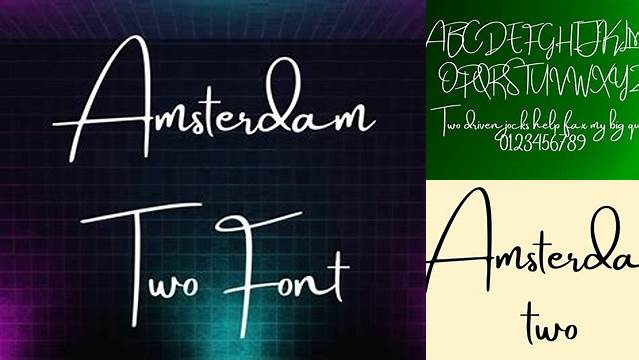
The world of typography is vast and varied, with countless fonts available for use in graphic design, web design, and more. Among these, Amsterdam Two font has carved out a niche for itself, known for its distinctive style and versatility. This font is often sought after by designers looking to add a touch of elegance and modernity to their projects. Its clean lines and unique character shapes make it suitable for a wide range of applications, from branding and advertising to editorial design and web interfaces. Understanding the appeal of Amsterdam Two involves recognizing its specific characteristics and how they can be leveraged to create visually compelling designs. The font's aesthetic properties, such as its weight, spacing, and overall form, contribute to its legibility and visual impact. Designers often select Amsterdam Two for its ability to convey a sense of sophistication and contemporary style, making it a popular choice for projects that aim to project a modern yet timeless image. Moreover, the availability of Amsterdam Two in various styles and weights further enhances its versatility, allowing designers to tailor its appearance to specific needs and contexts. Whether used in headlines, body text, or logos, Amsterdam Two offers a unique visual signature that can elevate the overall design and communication effectiveness of a project.
So, what exactly is Amsterdam Two font? This font is celebrated for its modern and elegant aesthetic, making it a favorite among designers for various projects. Think logos, websites, posters, and even branding materials. Its clean lines and unique letterforms give it a distinct personality that can elevate any design. The beauty of Amsterdam Two font lies in its versatility; it’s equally at home in a sleek, minimalist design as it is in a more elaborate, creative composition. It's this adaptability that makes it a go-to choice for many professionals. Amsterdam Two font is characterized by its contemporary and refined design elements. Its clean lines and distinctive letterforms contribute to its overall elegance, making it a popular choice for various design applications. The font's modern aesthetic is often favored by designers looking to create a sophisticated and visually appealing look. One of the key features of Amsterdam Two is its versatility. It can be effectively used in a wide range of projects, including logo design, website layouts, posters, and branding materials. Its adaptability allows it to seamlessly integrate into different design styles and contexts, making it a valuable asset for creative professionals. The font's legibility and clarity also play a significant role in its popularity. Amsterdam Two is designed to ensure readability across different sizes and mediums, which is essential for both print and digital applications. This attribute makes it suitable for body text as well as headlines, providing designers with the flexibility to use the font throughout a project. Furthermore, the unique personality of Amsterdam Two sets it apart from more generic fonts. Its distinct character shapes and overall visual presence add a touch of originality to designs, helping to create a memorable and impactful impression. Whether used sparingly or as a dominant element, Amsterdam Two can enhance the visual appeal and communication effectiveness of any design project.
Let's talk features, guys! Amsterdam Two font boasts several characteristics that make it stand out. Its clean, geometric structure provides excellent readability, while its slightly rounded edges add a touch of warmth and approachability. This balance is key to its widespread appeal. The font also comes in various weights and styles, from light to bold, allowing for a wide range of applications. Plus, its multilingual support ensures it can be used in projects around the globe. The key features of Amsterdam Two font are what truly set it apart in the world of typography. Its geometric structure is a defining characteristic, providing a sense of order and precision that contributes to its clean and modern appearance. This structural clarity is essential for readability, ensuring that the font remains legible across different sizes and mediums. The slight rounding of edges is another noteworthy feature, softening the overall look and adding a touch of warmth to the font's personality. This subtle detail prevents the font from appearing too sterile or clinical, making it more approachable and inviting. Versatility is a hallmark of Amsterdam Two, evident in the variety of weights and styles available. From light to bold, the font family offers a range of options that allow designers to tailor the font's appearance to specific needs. This adaptability makes Amsterdam Two suitable for diverse applications, from headlines and titles to body text and captions. The inclusion of multilingual support further enhances its utility, making it a globally applicable font. This feature ensures that Amsterdam Two can be used effectively in projects that require different languages and character sets, expanding its reach and usability. In addition to these features, Amsterdam Two's balanced design contributes to its overall appeal. The font strikes a harmonious balance between modernity and classic elegance, making it a versatile choice for a wide range of design styles. Whether used in corporate branding, editorial design, or web interfaces, Amsterdam Two maintains a consistent level of sophistication and readability.
Why should you choose Amsterdam Two font over the myriad of other options out there? The answer lies in its unique blend of elegance and modernity. This font is perfect for projects where you want to convey a sense of sophistication without sacrificing readability. It's also incredibly versatile, working well in both digital and print mediums. If you're aiming for a sleek, contemporary look, Amsterdam Two is definitely a font to consider. The reasons to choose Amsterdam Two font are numerous, making it a standout option for designers seeking a blend of elegance and modernity. Its ability to convey sophistication without sacrificing readability is a significant advantage. In projects where clear communication is paramount, Amsterdam Two excels by maintaining legibility across various sizes and mediums. This ensures that the message is effectively delivered, whether in print or digital formats. The font's versatility is another key factor that makes it an attractive choice. Its design is well-suited for a wide range of applications, from corporate branding and advertising to editorial layouts and web design. This adaptability allows designers to use Amsterdam Two in diverse projects without compromising the overall aesthetic or functional requirements. For those aiming for a sleek, contemporary look, Amsterdam Two is particularly compelling. Its clean lines and modern letterforms contribute to a polished and sophisticated appearance, ideal for projects that require a refined visual style. The font's ability to project a sense of innovation and style makes it a valuable asset in creating designs that stand out. Beyond its aesthetic qualities, Amsterdam Two also offers practical benefits. Its consistent design and balanced proportions make it easy to work with, ensuring that it integrates seamlessly into different design workflows. The font's comprehensive character set, including numerals, punctuation, and special characters, further enhances its usability and functionality. In summary, Amsterdam Two is a font that combines visual appeal with practical advantages, making it an excellent choice for designers who prioritize both form and function. Its blend of elegance, modernity, and versatility ensures that it remains a relevant and sought-after option in the world of typography.
Let's dive a bit deeper into licensing. When you download Amsterdam Two font, or any font for that matter, it's essential to understand the licensing terms. Some fonts are free for personal use but require a commercial license for business projects. Others may have restrictions on how you can modify or redistribute them. Ignoring these terms can lead to legal headaches down the road, so it's always best to be informed. Make sure you read the fine print and understand what you're agreeing to before using the font in any project. Understanding licensing considerations is crucial when downloading and using fonts, including Amsterdam Two. Fonts are intellectual property, and their usage is governed by copyright laws and licensing agreements. These agreements outline the terms and conditions under which the font can be used, including whether it's free for personal use, requires a commercial license for business projects, or has restrictions on modification and redistribution. Ignoring these terms can lead to legal complications and financial penalties, making it essential to be informed and compliant. The first step in navigating licensing considerations is to identify the type of license associated with the font. Many fonts are available under different license types, each with varying usage rights. Some fonts are offered under open-source licenses, which typically allow for free use, modification, and distribution. However, even with open-source licenses, there may be requirements for attribution or limitations on commercial use. Other fonts are licensed under proprietary agreements, which often differentiate between personal and commercial use. Personal use licenses typically allow individuals to use the font for non-commercial projects, such as personal websites, school assignments, or hobby projects. Commercial licenses, on the other hand, are required for any use that generates revenue, such as in advertising, branding, or product design. These licenses often come with a fee and may have additional restrictions on usage. It's also important to consider the specific restrictions outlined in the licensing agreement. Some licenses may limit the number of users who can access the font, the number of projects in which it can be used, or the types of media on which it can be displayed. Other licenses may prohibit modification of the font or redistribution without permission. Carefully reading the fine print and understanding these restrictions is essential to ensure compliance. To avoid legal issues, it's always best to err on the side of caution and obtain the appropriate license for the intended use. If the licensing terms are unclear or ambiguous, it's advisable to contact the font foundry or copyright holder for clarification. Additionally, keeping records of licensing agreements and font sources can help demonstrate compliance in the event of an audit or dispute. In summary, licensing considerations are a critical aspect of using fonts legally and ethically. By understanding the different types of licenses, reading the fine print, and complying with the terms and conditions, designers can avoid legal headaches and ensure that they are using fonts appropriately.
If you're loving the style of Amsterdam Two font but can't quite find a free version or want to explore similar options, you're in luck! There are plenty of other fonts out there that offer a similar aesthetic. Fonts like Montserrat, Lato, and Open Sans share a similar clean, modern feel. These are all excellent alternatives that are often available for free under open-source licenses. Don't be afraid to experiment and find the perfect font for your project! Exploring alternatives to Amsterdam Two font is a worthwhile endeavor for designers who appreciate its style but may be seeking different options, whether due to licensing constraints, specific project requirements, or simply a desire for variety. Fortunately, the world of typography offers a plethora of fonts that share a similar aesthetic, providing ample choices for creative exploration. Fonts like Montserrat, Lato, and Open Sans are often cited as excellent alternatives to Amsterdam Two, as they share its clean, modern feel and geometric structure. These fonts have gained widespread popularity for their readability and versatility, making them suitable for a wide range of design applications. Montserrat, in particular, is known for its geometric sans-serif design, which provides a sophisticated and contemporary look. Its clean lines and balanced proportions make it an excellent choice for headlines, body text, and branding materials. Lato, another popular option, offers a slightly warmer and more approachable feel, thanks to its semi-rounded details. Its readability and versatility make it suitable for both print and digital media. Open Sans is a classic sans-serif font that is highly regarded for its legibility and clean design. Its neutral and unobtrusive appearance makes it a reliable choice for body text, ensuring a comfortable reading experience. These alternatives are often available for free under open-source licenses, such as the SIL Open Font License, which allows for free use, modification, and distribution. This makes them accessible options for designers working on a variety of projects, including those with budget constraints. Beyond these well-known alternatives, there are many other fonts that share similarities with Amsterdam Two. Exploring different font foundries and online resources can reveal a wealth of options, each with its unique characteristics and nuances. Experimenting with different fonts and combinations is a valuable part of the design process, allowing designers to discover new possibilities and find the perfect typeface for their projects. In addition to considering alternative fonts, designers can also explore variations within the Amsterdam Two font family itself. Many font families offer different weights, styles, and variations, providing flexibility and allowing designers to tailor the font's appearance to specific needs. In summary, while Amsterdam Two font is a stylish and versatile choice, there are numerous alternatives available that offer a similar aesthetic. By exploring options like Montserrat, Lato, and Open Sans, designers can find fonts that meet their specific requirements and enhance their creative projects. Don't be afraid to experiment and discover the perfect typeface for your design vision.
So, there you have it! A comprehensive guide to Amsterdam Two font and how to download it for free. Remember to always be cautious when downloading fonts from the internet and respect licensing terms. With its elegant and modern design, Amsterdam Two can be a fantastic addition to your font library. Happy designing, guys! In conclusion, Amsterdam Two font stands as a testament to the power of elegant and modern design in the world of typography. Its versatility and distinct aesthetic make it a sought-after choice for designers across various fields. Throughout this guide, we've explored the font's key features, its applications, and the considerations involved in legally and safely acquiring it. Whether you're working on branding, web design, or any other creative project, Amsterdam Two offers a unique visual appeal that can elevate your work. However, the journey of downloading fonts, especially free ones, requires caution and awareness. The internet, while being a treasure trove of resources, also presents risks in the form of malware and copyright infringements. It is crucial to prioritize downloading from reputable sources and always adhering to licensing terms. This ensures not only the safety of your system but also respects the rights of the font creators. If free options for Amsterdam Two are elusive or don't meet your needs, exploring similar fonts or considering purchasing a license are viable alternatives. Fonts like Montserrat, Lato, and Open Sans offer a comparable modern aesthetic and are often available under open-source licenses. Remember, the right font is more than just a visual element; it's a tool that communicates a message, evokes emotions, and sets the tone for your design. The choice should align with the project's goals and values, enhancing its overall impact. As you venture into your design endeavors, let this guide serve as a reminder to be informed, cautious, and creative in your font selections. Happy designing, and may your typographic choices always reflect your artistic vision and professionalism. In the realm of design, the font is not just a style choice but a statement—make it count!